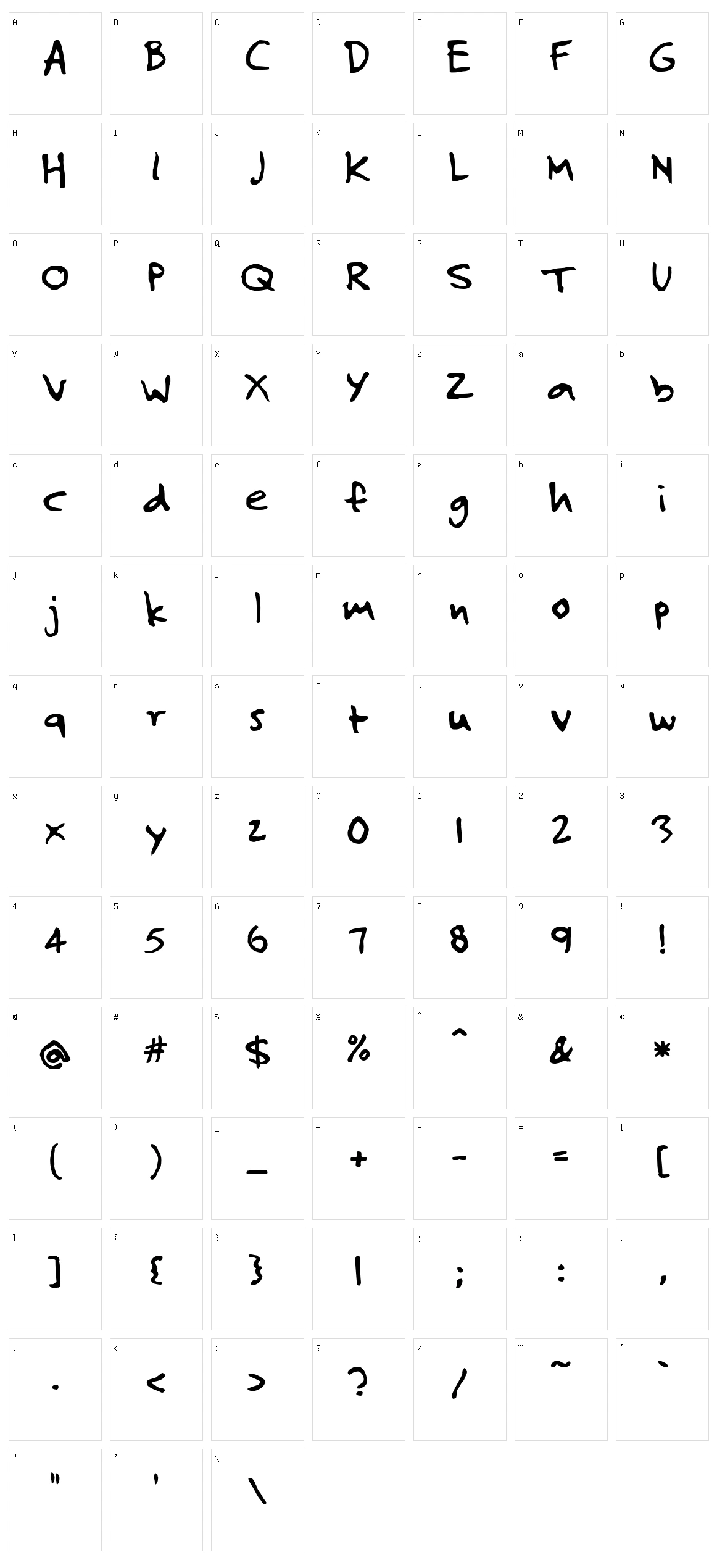
I felt the need to create this font because I never really found a
"Two and a Half Men" font which is true to the one used in the TV show.
Well, this one is!
It comes in the Regular variation. The font is mapped to the ASCII
standard.